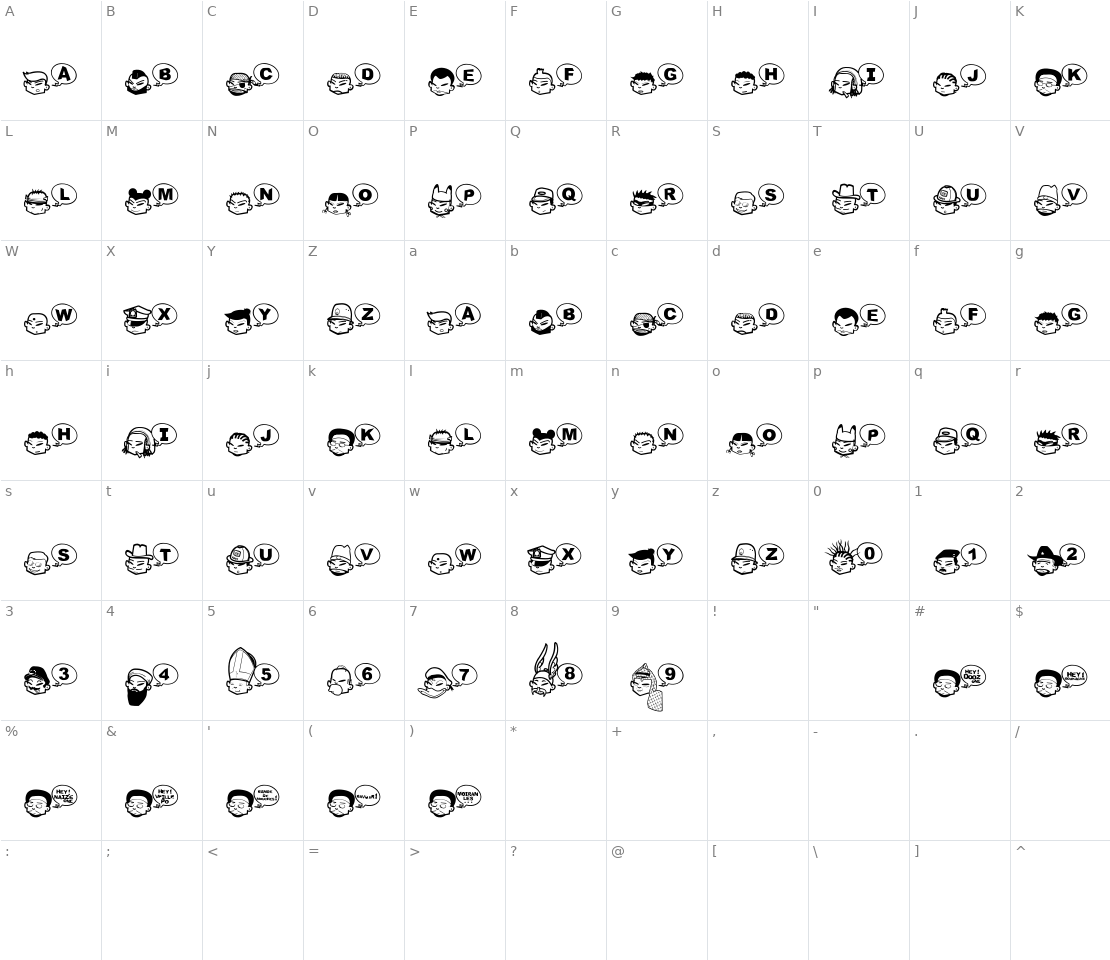
Tha Boukagne's
by Grenoble Graphik it !
Tha Boukagne's is a novelty face from Grenoble Graphik it ! where the letterforms incorporate cartoon faces and character-like details, giving each glyph its own little personality. The style is cute and playful, clearly aimed at children's projects, greeting cards, or anywhere type needs to feel more like illustration than text. It's a decorative face through and through, so keep it to short bursts where the charm of the characters can actually register.